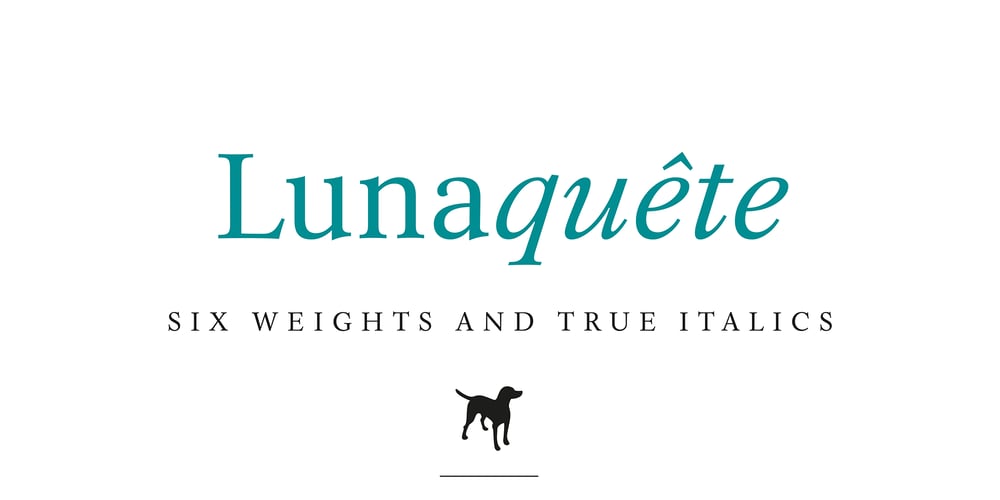
Lunaquete Font Family was designed by Erwin Krump and published by Erwin Krump. Lunaquete contains 12 styles and family package options. The Lunaquête family is a collection of Serif fonts with 6 styles and true Italics. It was designed for book typography. Especially Regular and Text are suitable for this purpose. Medium, Semibold and Bold can be used for text highlighting. Light and Light Italic are suitable for headlines.